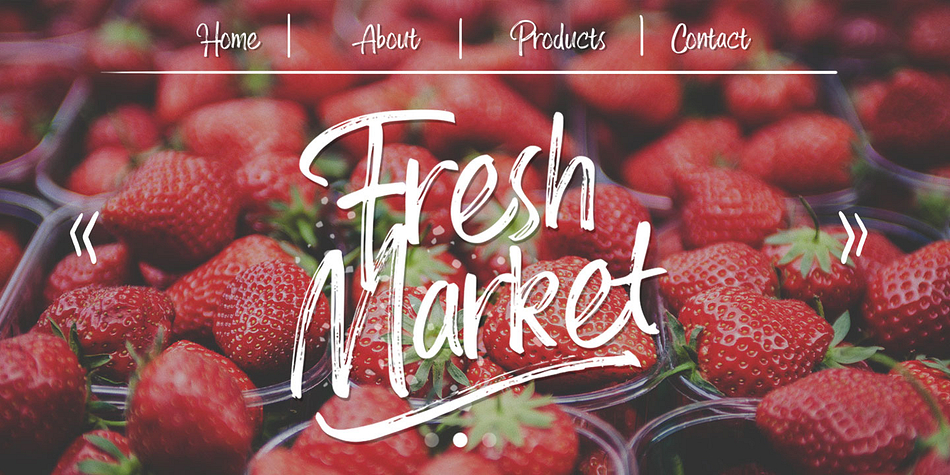
Neptunian
Designed by Ricky Rinaldi, Neptunian is a multiple classification font family. This typeface has two styles and was published by Aiyari.
Introducing a new casual handwriting typeface called Neptunian. Inspired by quick dry brush stroke combined with the wild spirit of summer vibes.
The typeface Ideal for logos, quotes, invitations, signage, posters, websites, greeting cards, packaging, headers, printed quotes, album covers, etc. Neptunian comes with open type features such as stylistic alternates, stylistic sets, ligatures, and support with the PUA encoded.
To help you make stunning designs, Neptunian also comes with extras swashes.
Styles Brush Display, Brush Script, Grunge, Hand Display, Dingbat